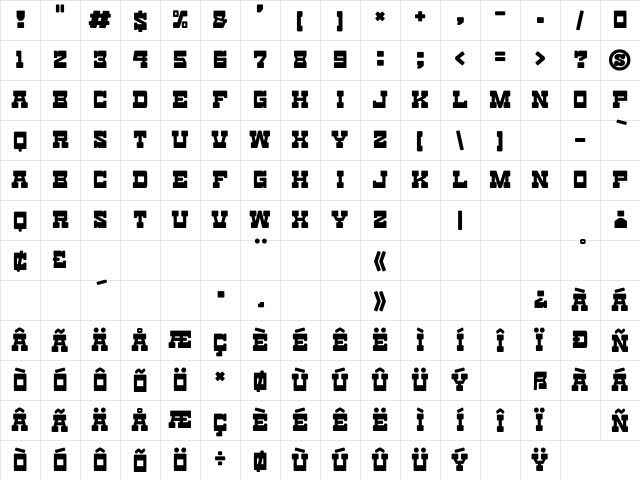
Toy Block Maestro Regular
Design Context for Toy Block Maestro
Toy Block Maestro is a composed and adaptable typeface that performs quietly and consistently across a wide range of design contexts.
Pro Tip: Use Toy Block Maestro in both headline and body roles to test its range before committing to a single application.